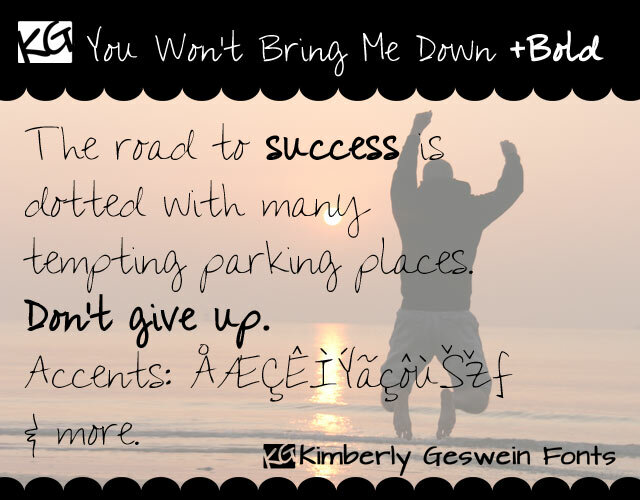
You Wont Bring Me Down by Kimberly Geswein is a free handwritten font with tall, loosely drawn letters and an airy, uneven silhouette. Fine monoline strokes shift between sharp angles and broad loops, giving the writing the quick, uncorrected quality of notes made with a felt-tip pen.
Its indie, do-it-yourself character suits music posters, album artwork, and casual apparel graphics, where the lanky lettering can become part of the artwork rather than a neutral caption. It also fits personal stationery and youth-oriented event materials aimed at audiences who respond to direct, informal lettering.